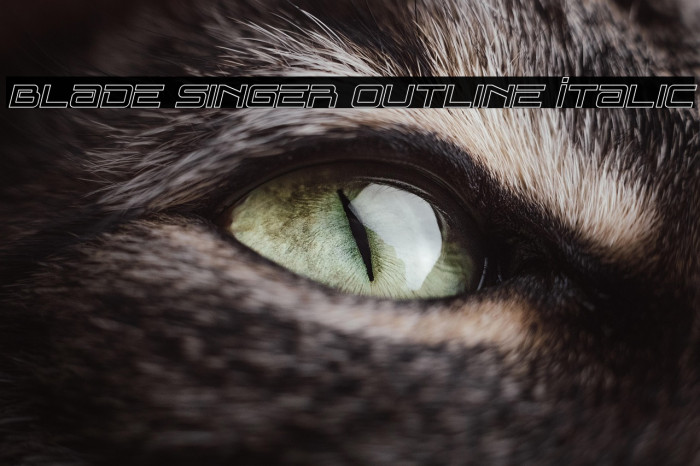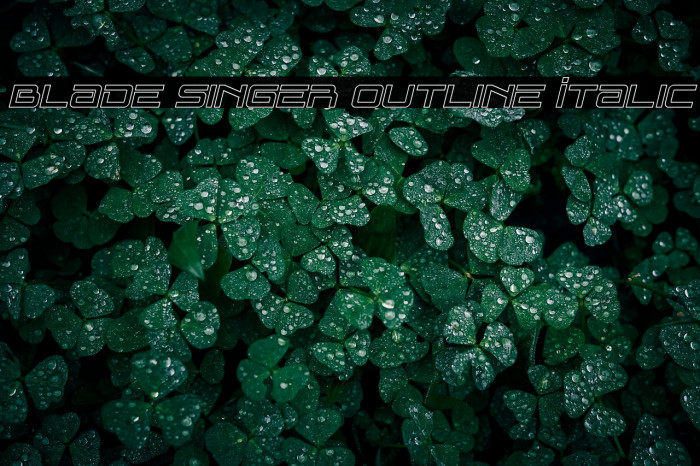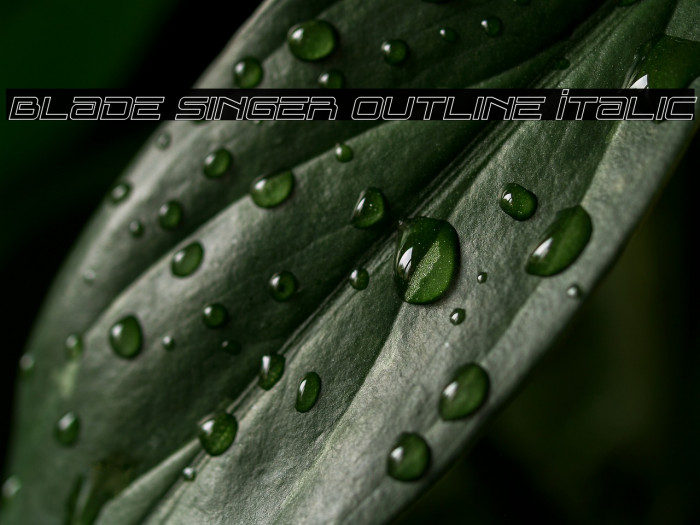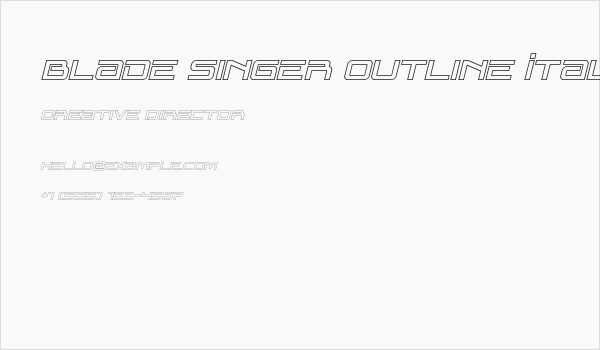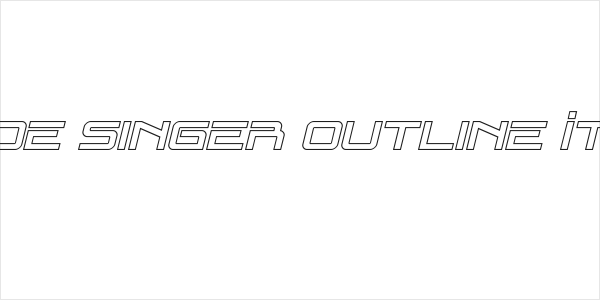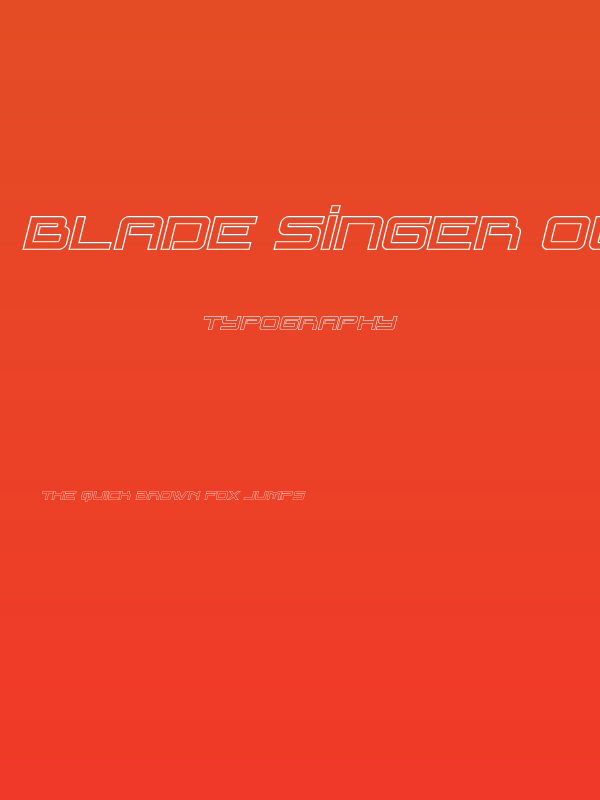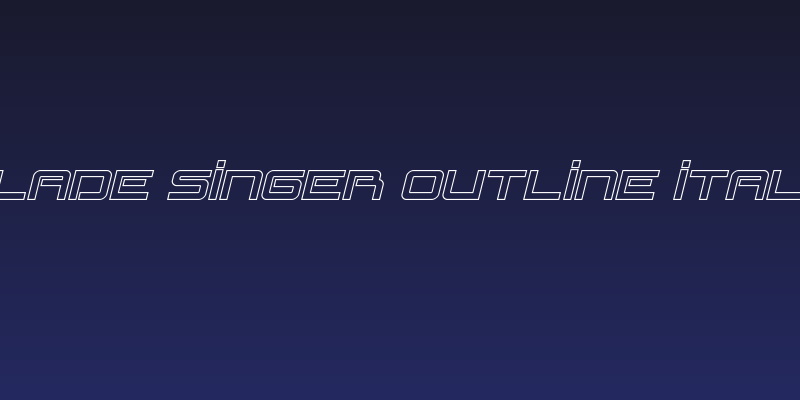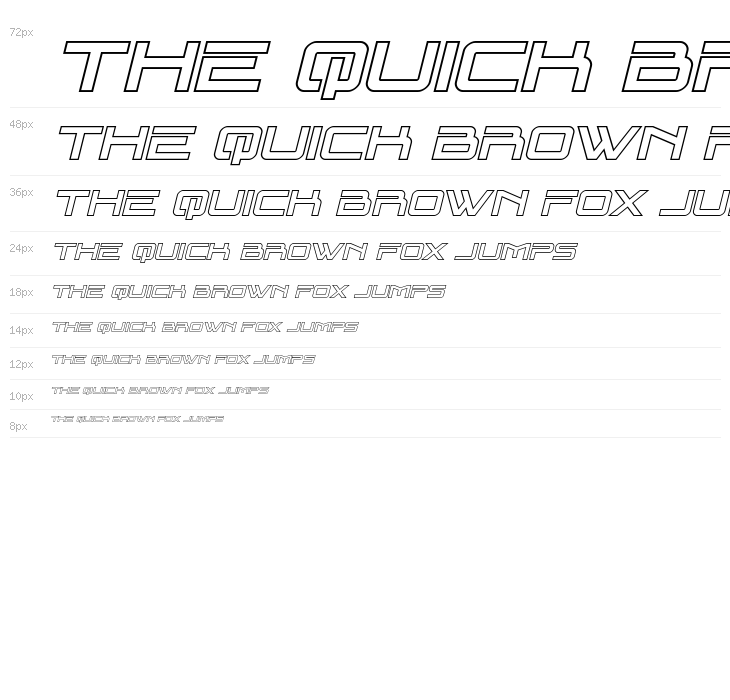
Blade Singer Outline Italic Font
Blade Singer Outline Italic Description
This font features a modern, geometric outline style with a distinct italic slant, giving it a dynamic and futuristic appearance. The characters are constructed with clean, angular lines and sharp edges, creating a sense of movement and speed. The uppercase and lowercase letters maintain a consistent height, while the numerals and special characters complement the overall design with similar geometric precision. The outline nature of the font adds a layer of depth and complexity, making it suitable for eye-catching designs.
| Proposed Projects | Ideal for futuristic branding, tech-related projects, video game titles, and dynamic posters. |